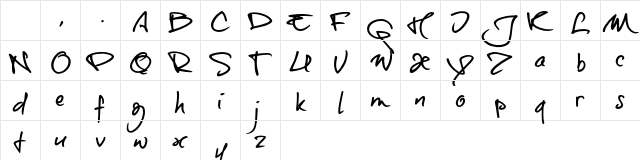
Complete onetrickTony Regular glyph index. Displaying only characters natively supported by onetrickTony Regular font.
onetrickTony is a composed and adaptable typeface that performs quietly and consistently across a wide range of design contexts.